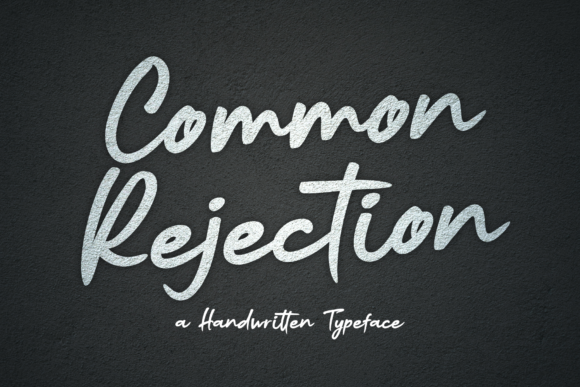
Welcome to the realm of typography, where letters dance with elegance and meaning, shaping the visual symphony of your digital presence. Among the enchanting melodies of fonts, one name stands out - Common Rejection, a symphony of creativity and expression crafted by the maestro DUMADI.
Common Rejection is not just a font; it's an artistic odyssey that captures the essence of boldness, authenticity, and individuality. It's a script font that whispers tales of passion, resilience, and the triumph of the human spirit.
With its sweeping strokes and dynamic curves, Common Rejection dances across your screen, captivating your audience with its undeniable charm. It's a font that commands attention, leaving an imprint on the hearts and minds of those who encounter it.
Imagine your website's header adorned with the grace of Common Rejection. Its presence transforms your digital space into a captivating haven, inviting visitors to embark on an immersive journey through your content. Let the handwritten elegance of Common Rejection guide your visitors through your words, creating an emotional connection that transcends mere aesthetics.
Common Rejection is a font that speaks to the soul. Its intricate details and expressive lines evoke a sense of nostalgia, passion, and individuality. Whether you're creating logos, crafting inspiring quotes, or designing t-shirt masterpieces, Common Rejection adds a touch of magic to every project.
Envision the impact of Common Rejection in your travel titles, where its adventurous spirit captures the essence of faraway lands, inviting your audience to embark on a visual expedition. Watch as your movie titles come alive with the allure of Common Rejection, transporting viewers into worlds of drama, romance, and wonder.
The versatility of Common Rejection extends beyond the digital realm. Its charm translates seamlessly onto tumblers, community logos, and company branding, leaving an indelible mark of creativity wherever it appears. Join the ranks of those who embrace the boldness of Common Rejection, transforming their creative visions into stunning realities.
Common Rejection is a font that ignites imagination, fuels creativity, and captivates hearts. It's a testament to the power of typography, a visual masterpiece that elevates your projects to new heights of excellence. Embrace the allure of Common Rejection today, and let your creative spirit soar.